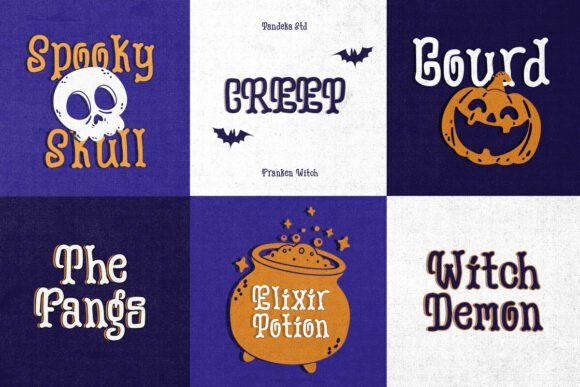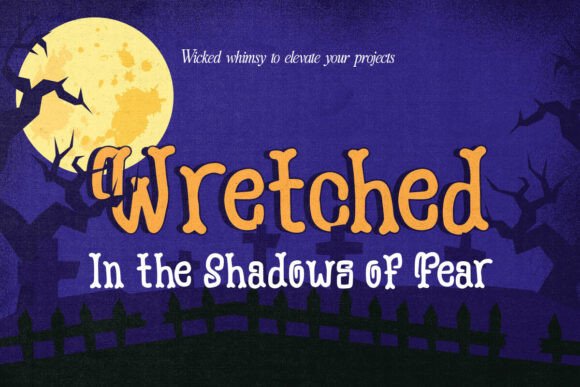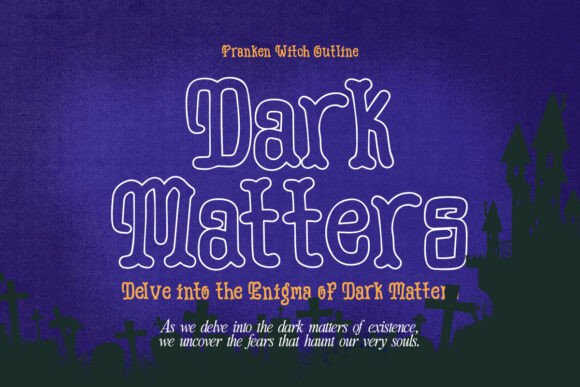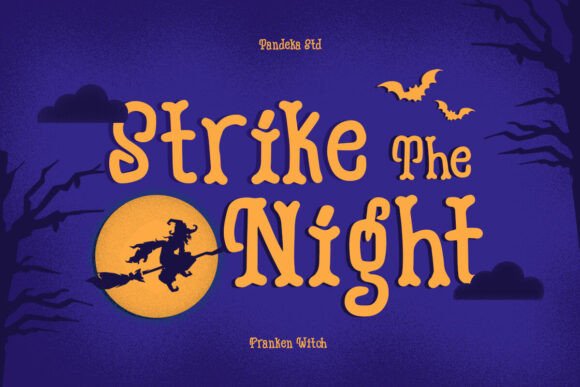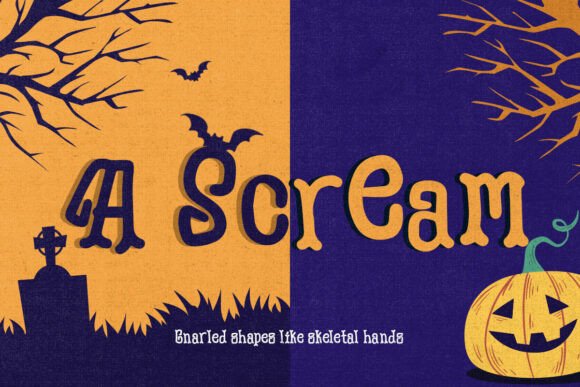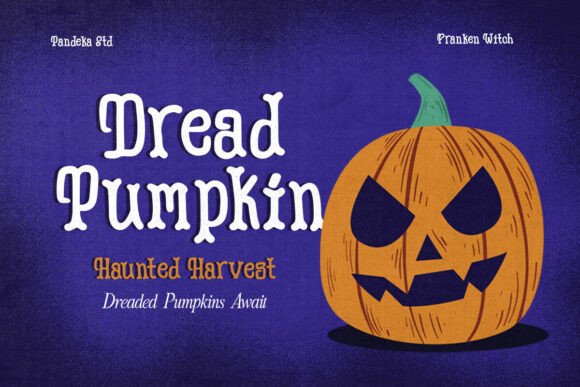
The Spooky Charm of Franken Witch Font: A Designer’s Delight
I still remember the time I was working on a Halloween-themed project for a client, and I was struggling to find the perfect font to capture the spooky essence of the design. The client wanted something that would send shivers down the spine, but I was coming up blank. That’s when I stumbled upon the Franken Witch font, and it was love at first sight! ✨ The rough texture, the chilling look, and the eerie atmosphere it evoked were exactly what I needed to bring the design to life.
The Good: ✨
- ✅ The font’s unique texture and design make it perfect for horror-themed projects, adding a creepy vibe that’s hard to achieve with other fonts.
- ✅ The character set is extensive, with plenty of glyphs and stylistic alternates to play with, giving you plenty of creative freedom.
- ✅ It’s surprisingly versatile, working well for both digital and print projects, from Halloween-themed party invites to spooky story covers.
The Not-So-Good: 🤔
- ⚠️ Some of the characters can be a bit tricky to read, especially at smaller font sizes, so it’s best to use it for headlines or titles rather than body text.
- ⚠️ The font’s rough texture can be a bit overwhelming if overused, so balance it with some cleaner fonts to create visual interest.
The Story Behind Franken Witch Font
Legend has it that the creator of Franken Witch font was inspired by classic horror movies and the spooky atmosphere of Halloween. They wanted to craft a font that would evoke the same eerie feelings as a creepy old mansion or a haunted forest. And so, Franken Witch was born – a font that’s equal parts spooky, charming, and versatile.
Q: What type of projects is Franken Witch font best suited for?
A: Franken Witch font is perfect for horror-themed projects, Halloween designs, and any project that requires a spooky, eerie atmosphere.
Q: Is Franken Witch font easy to read?
A: While Franken Witch font is unique and eye-catching, some characters can be a bit tricky to read, especially at smaller font sizes. It’s best to use it for headlines or titles rather than body text.